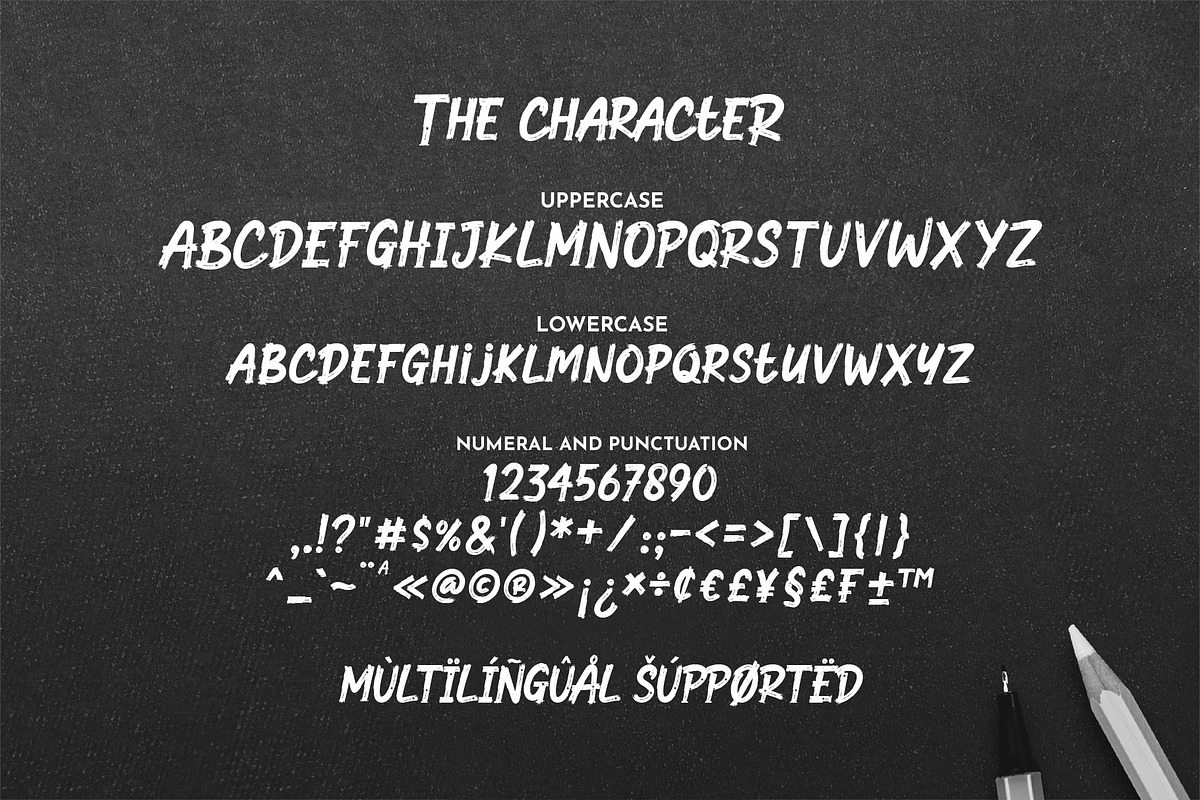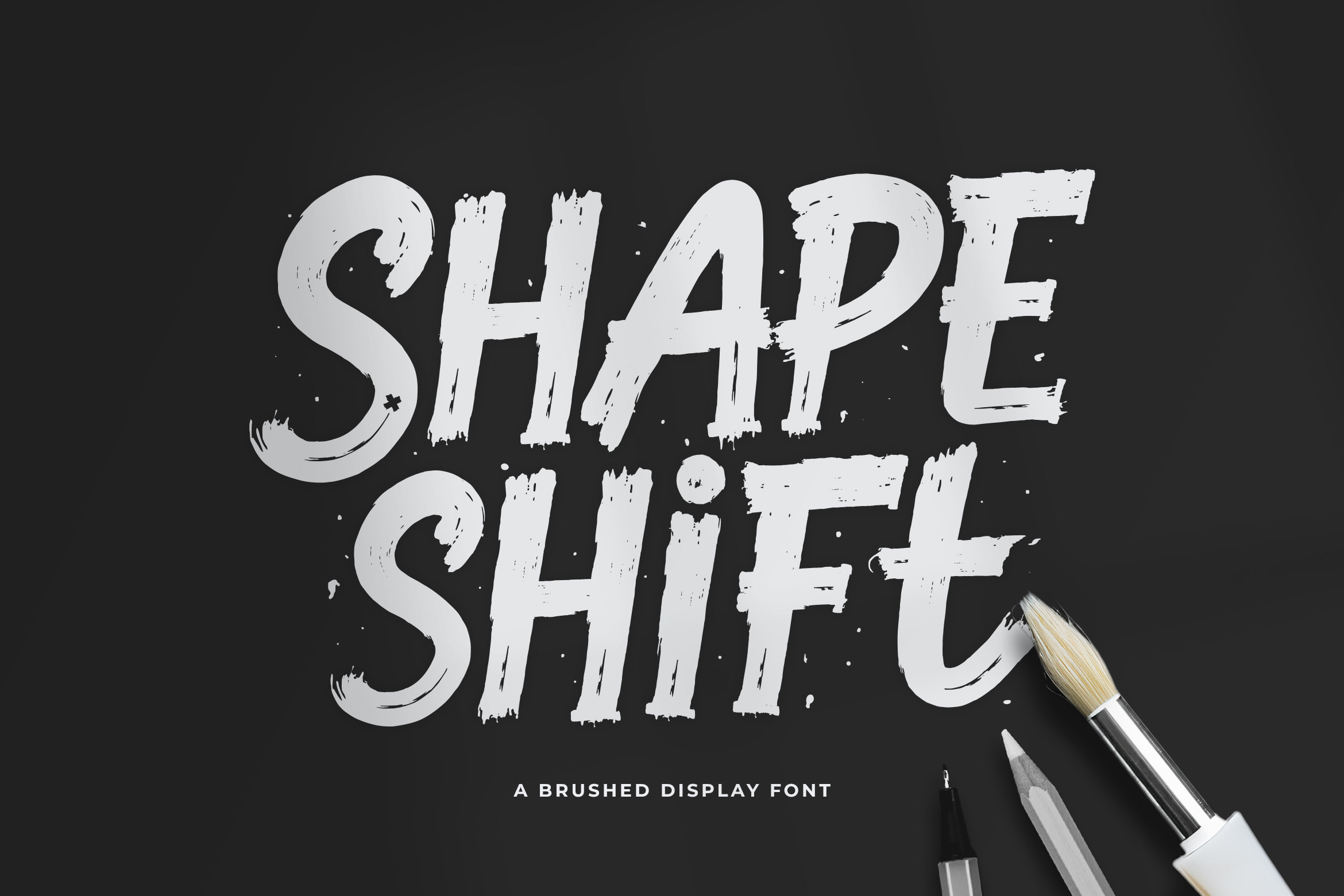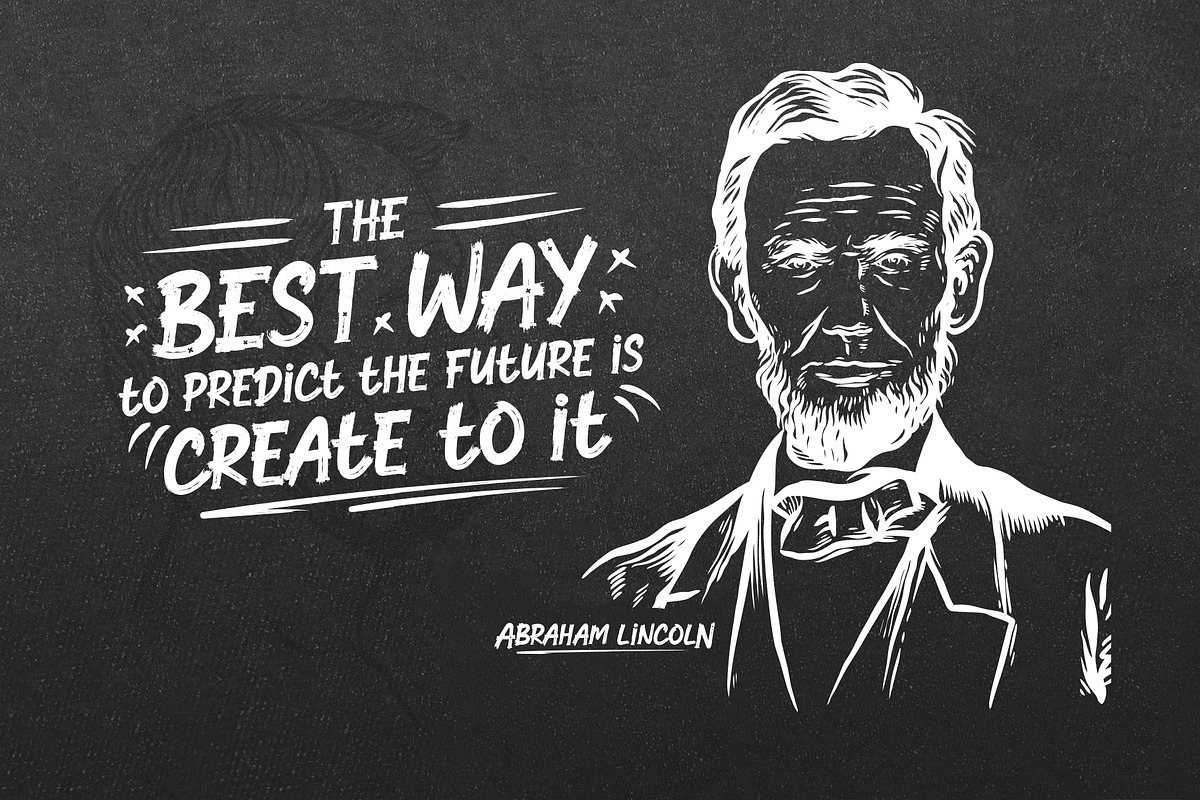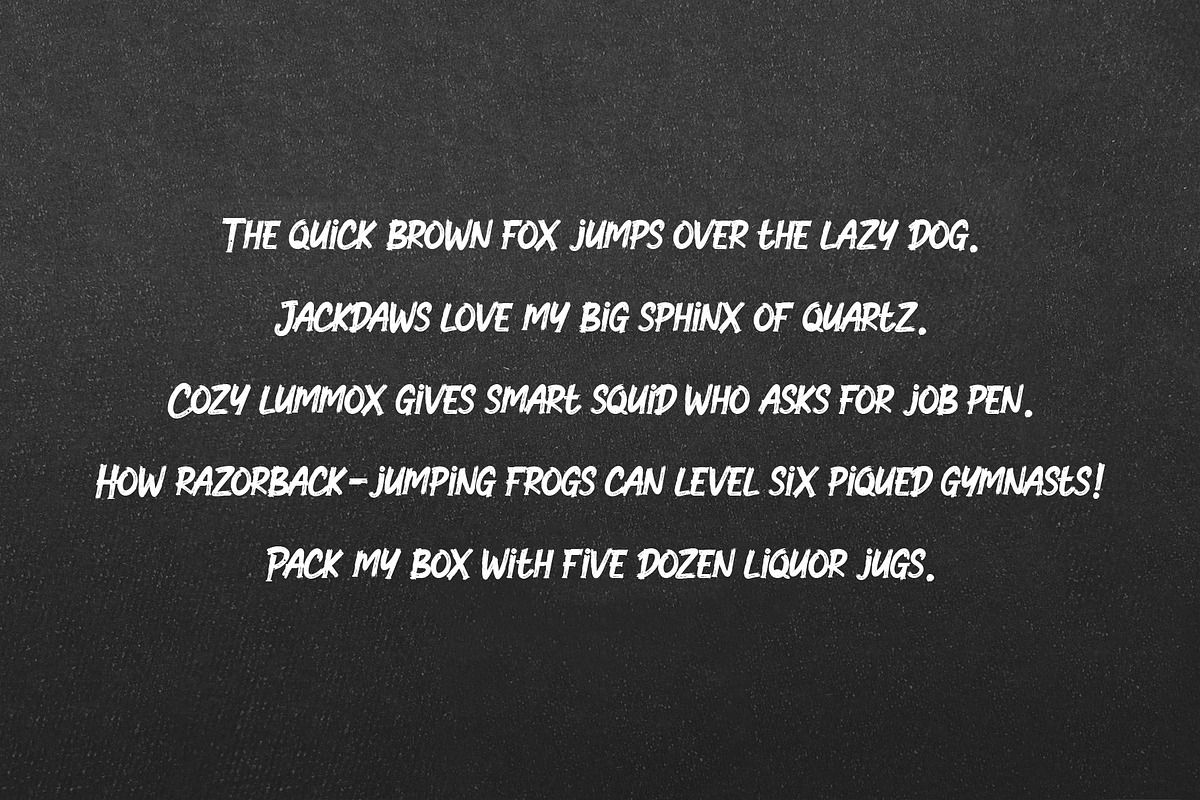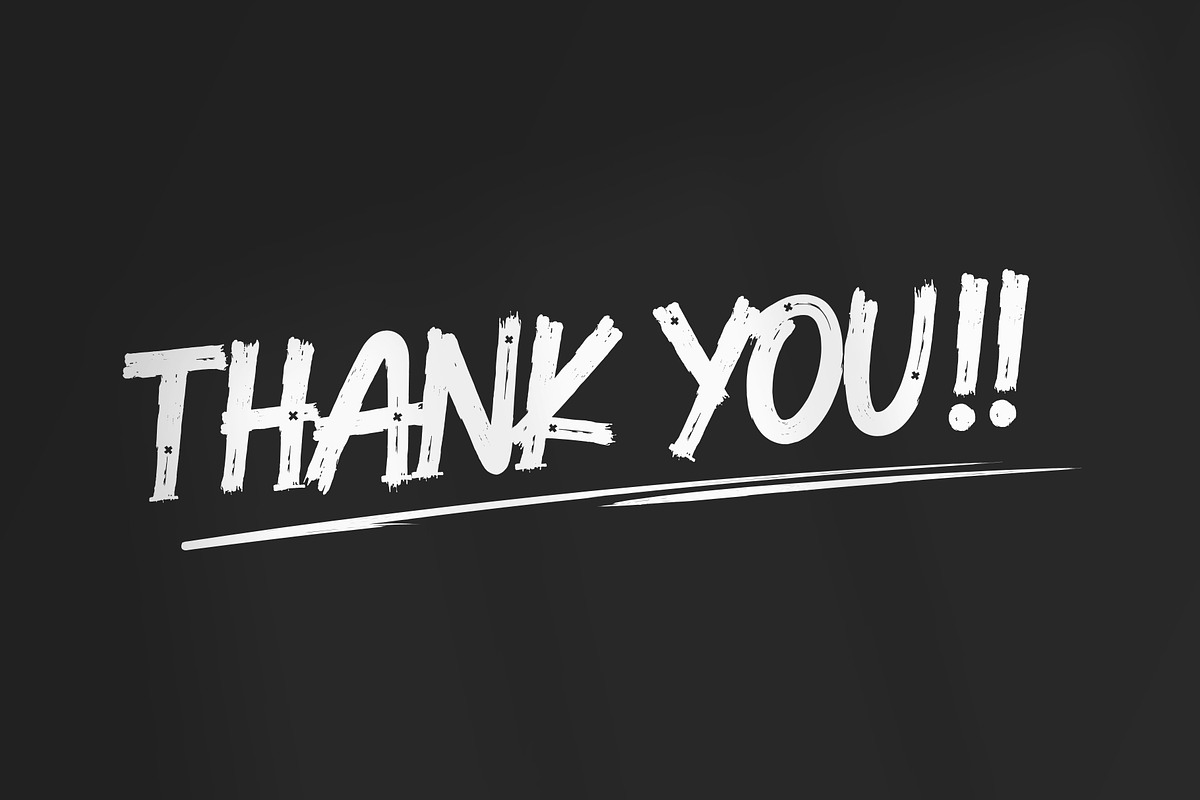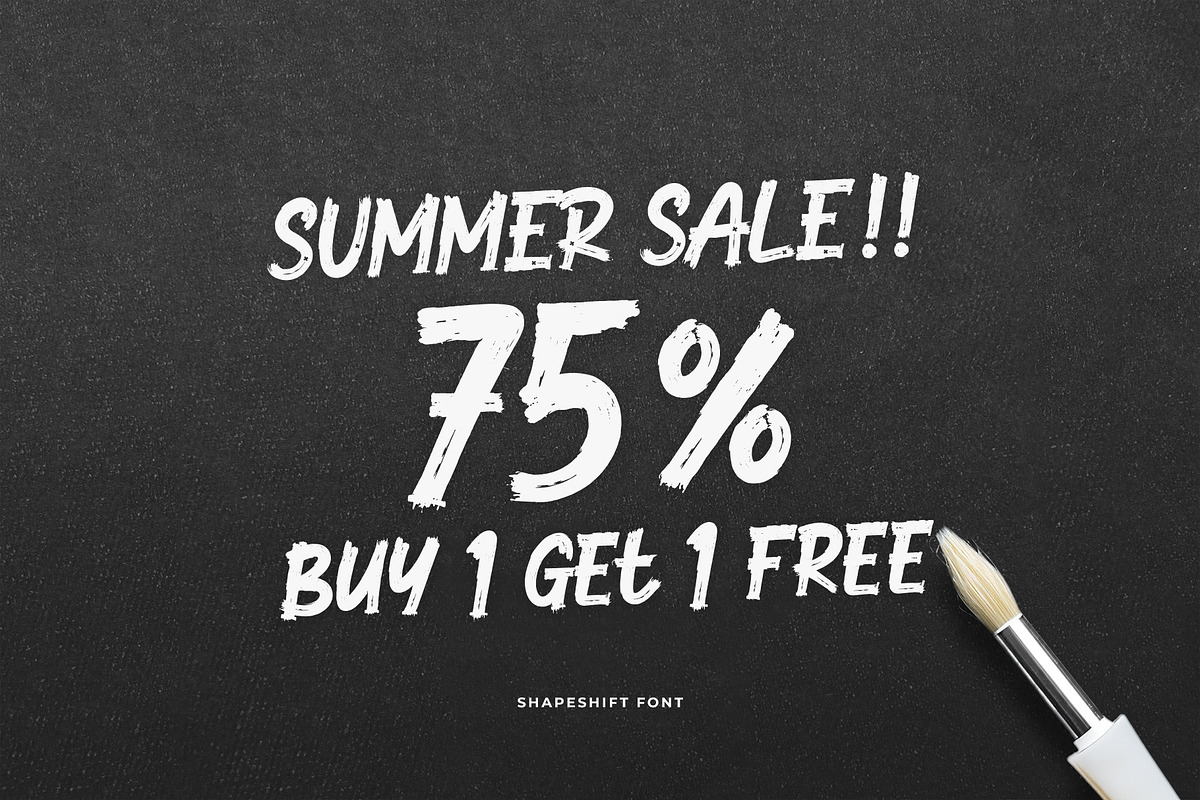
Shapeshift | Brushed Display Font
Shapeshift is a bold, brushed display font perfect for adding a touch of grunge and urban style to your designs. With its thick, textured strokes and slightly irregular letterforms, this font is ideal for creating eye-catching headlines, logos, and posters.
- Multilingual accents